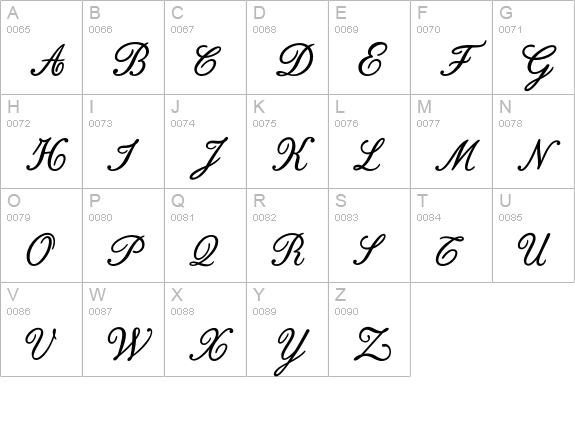
The BodoniClassic-EnglishInitials font is a timeless and elegant typeface that exudes sophistication and class. Its intricate details and ornate design make it a perfect choice for creating luxurious and stylish designs. This font combines traditional elements with a modern flair, resulting in a unique and eye-catching look that is sure to make your projects stand out. And the best part is, the BodoniClassic-EnglishInitials font is available for free download at FontsMarket.com. So, whether you're working on a wedding invitation, a logo design, or any other project that requires a touch of elegance, this font is a fantastic choice that won't cost you a thing. Download it today and add a touch of sophistication to your designs!